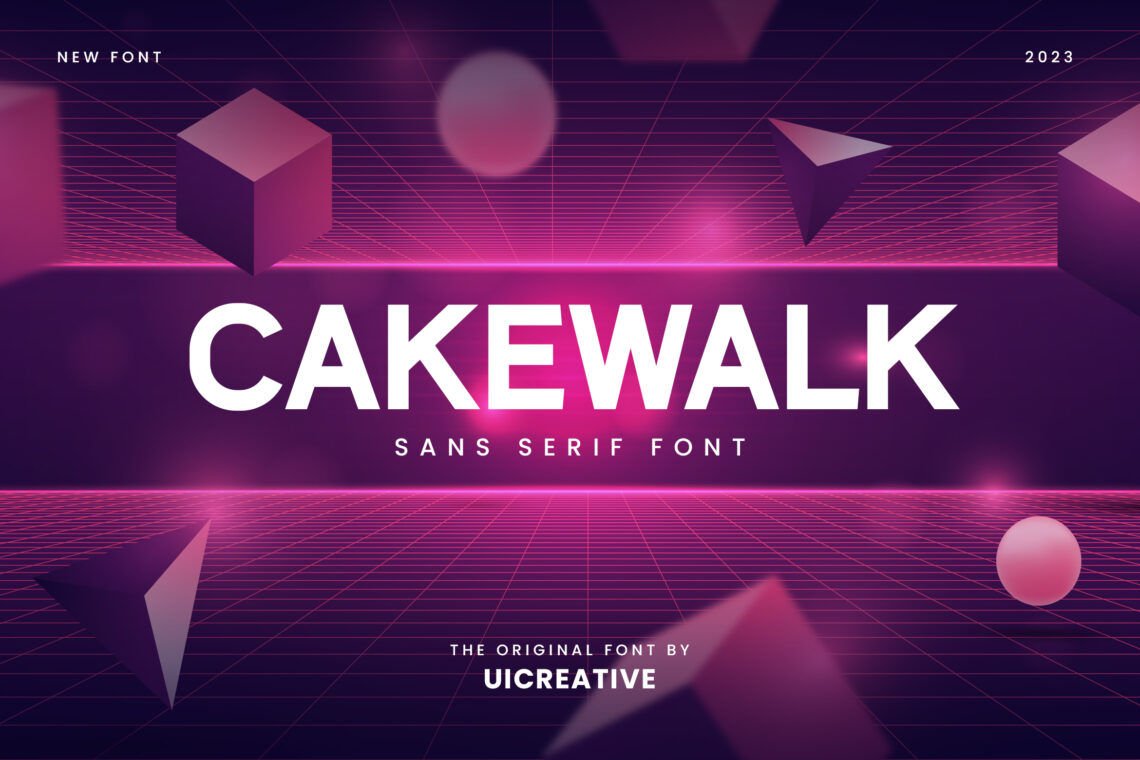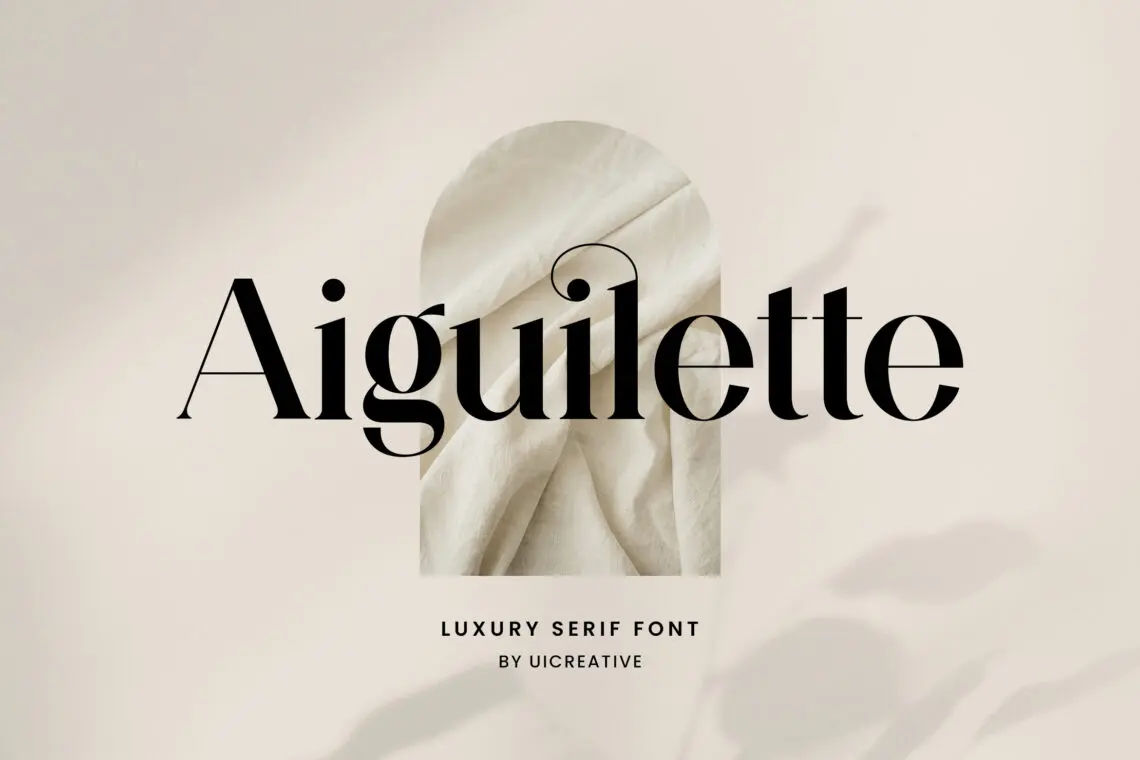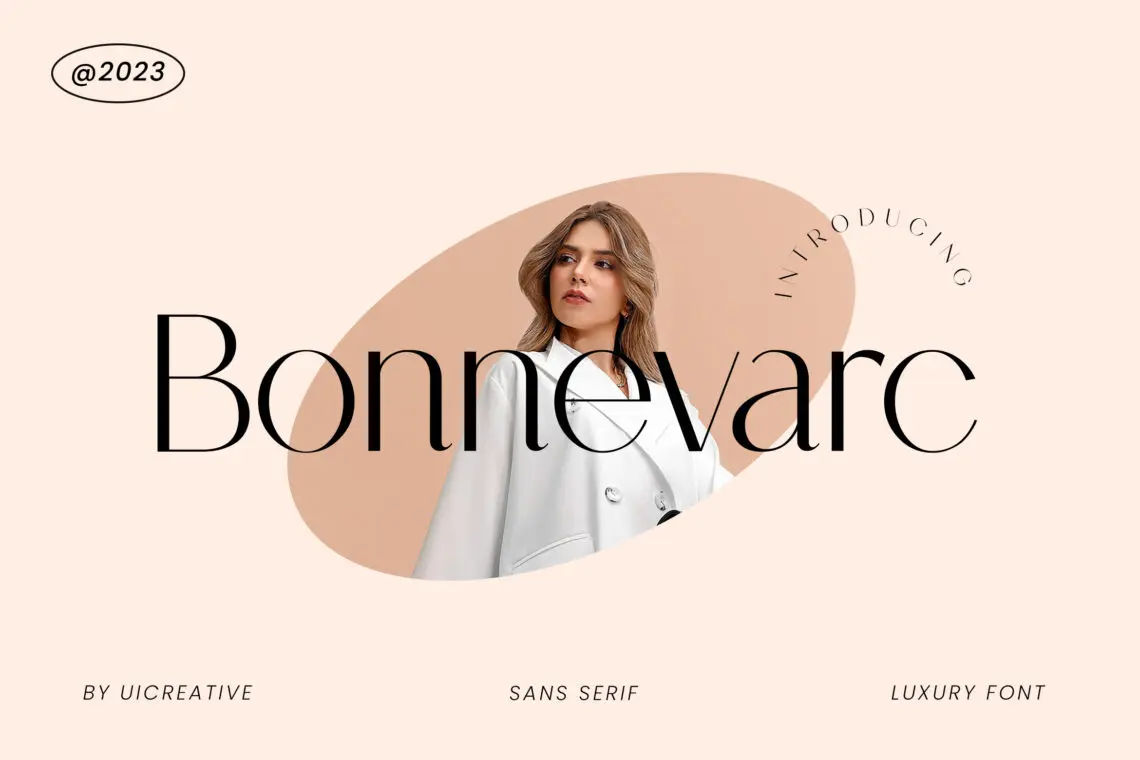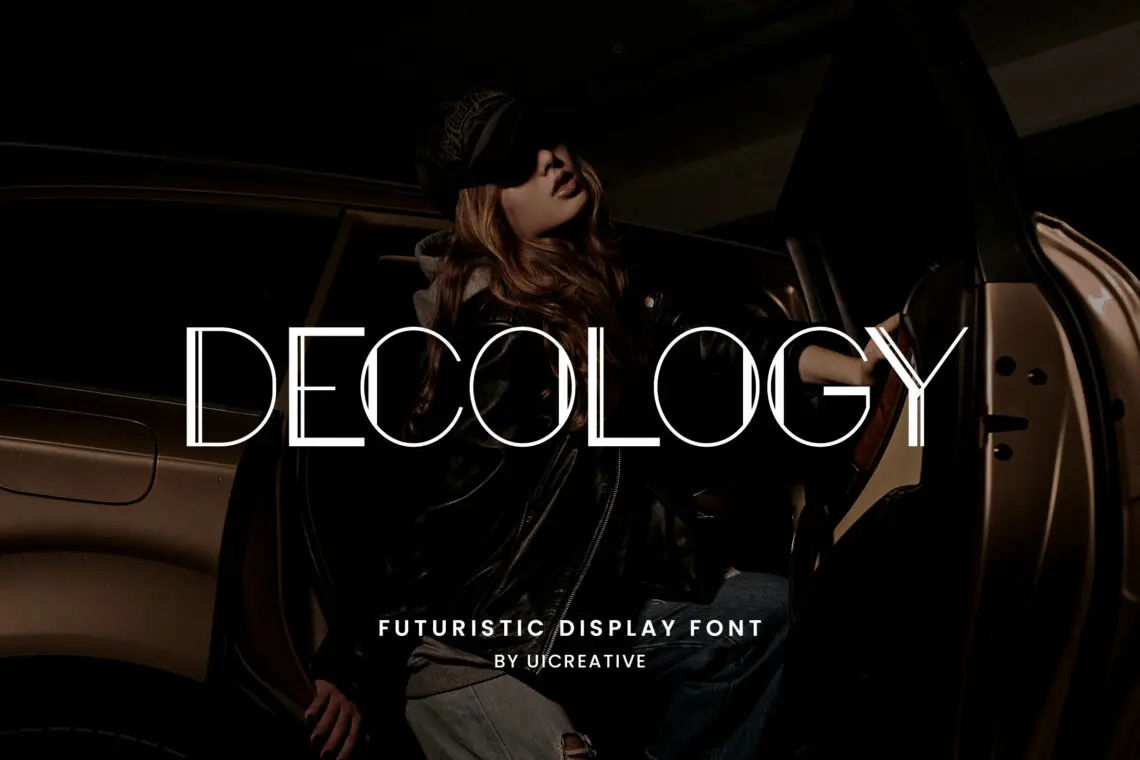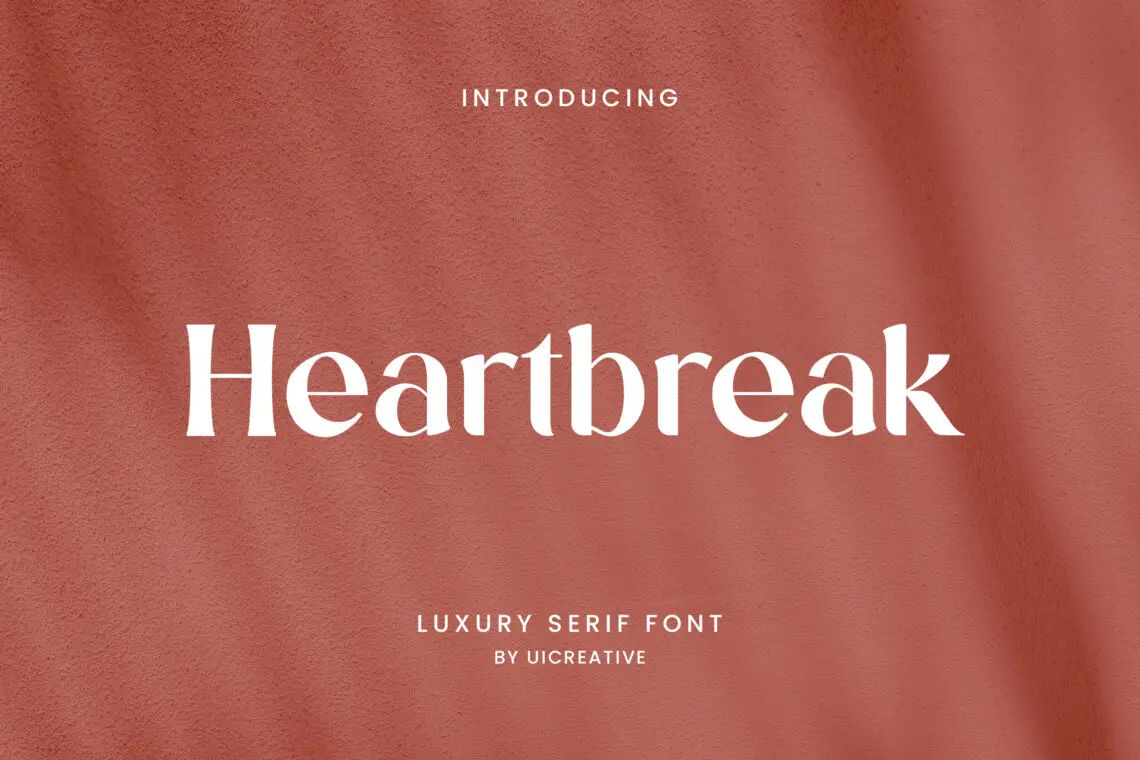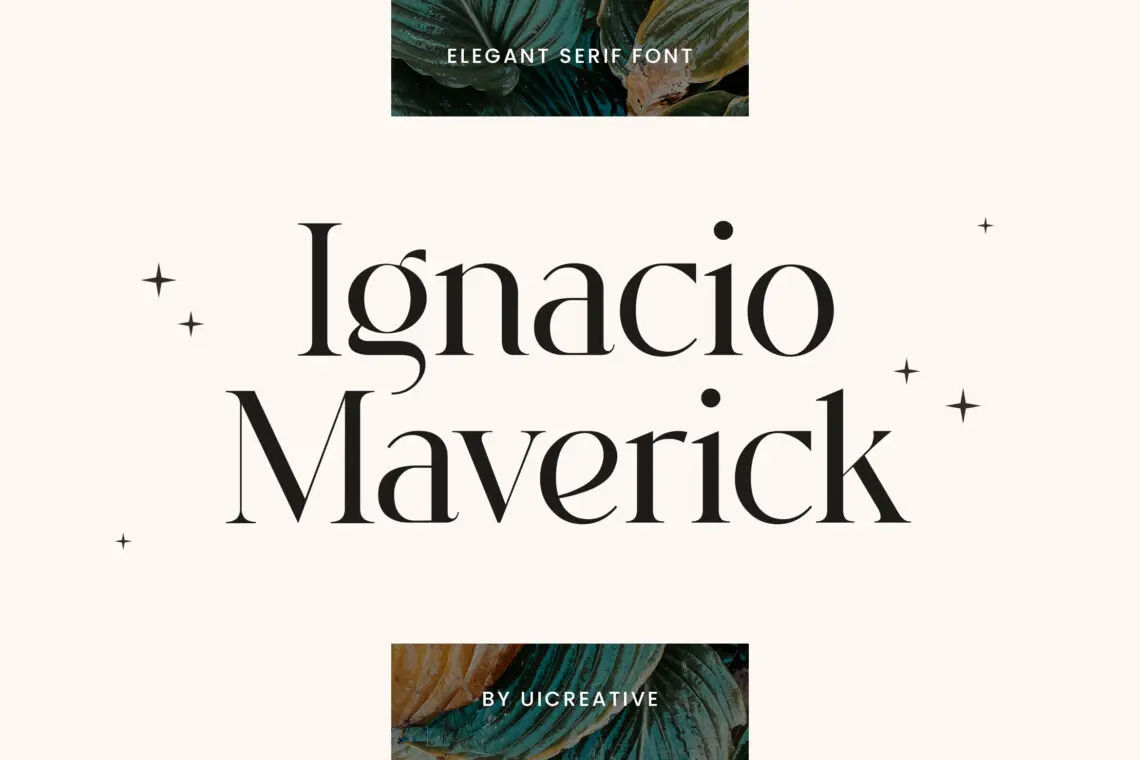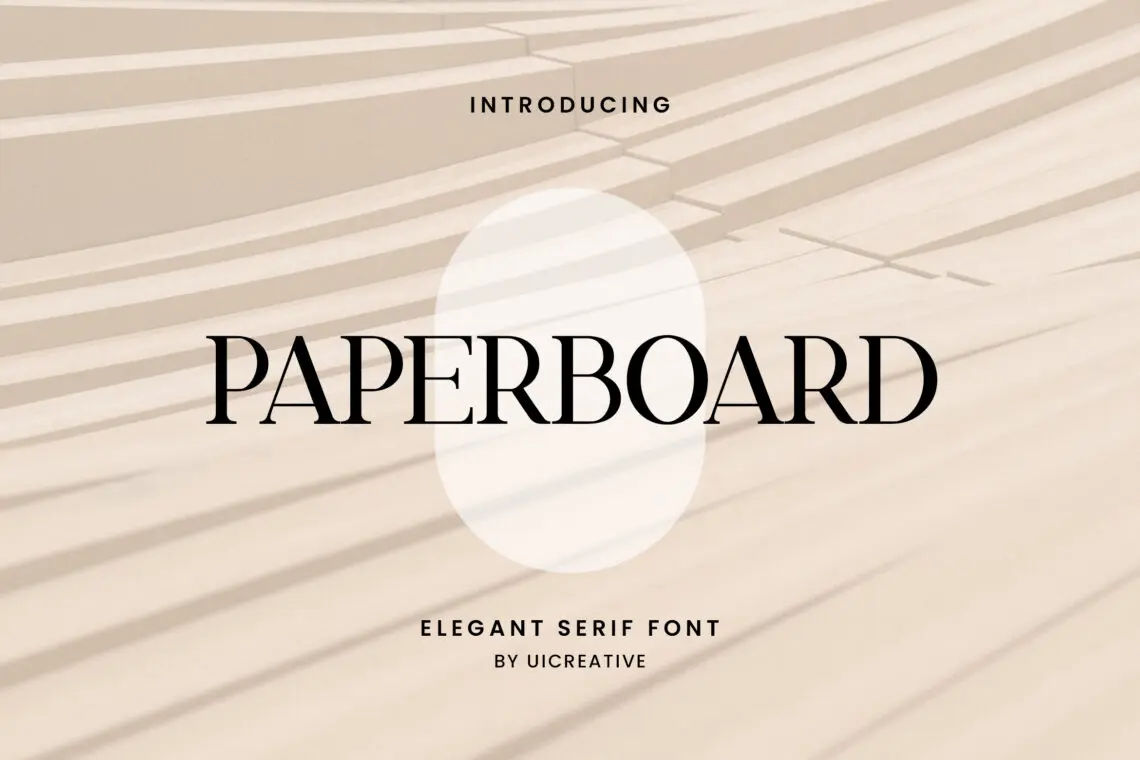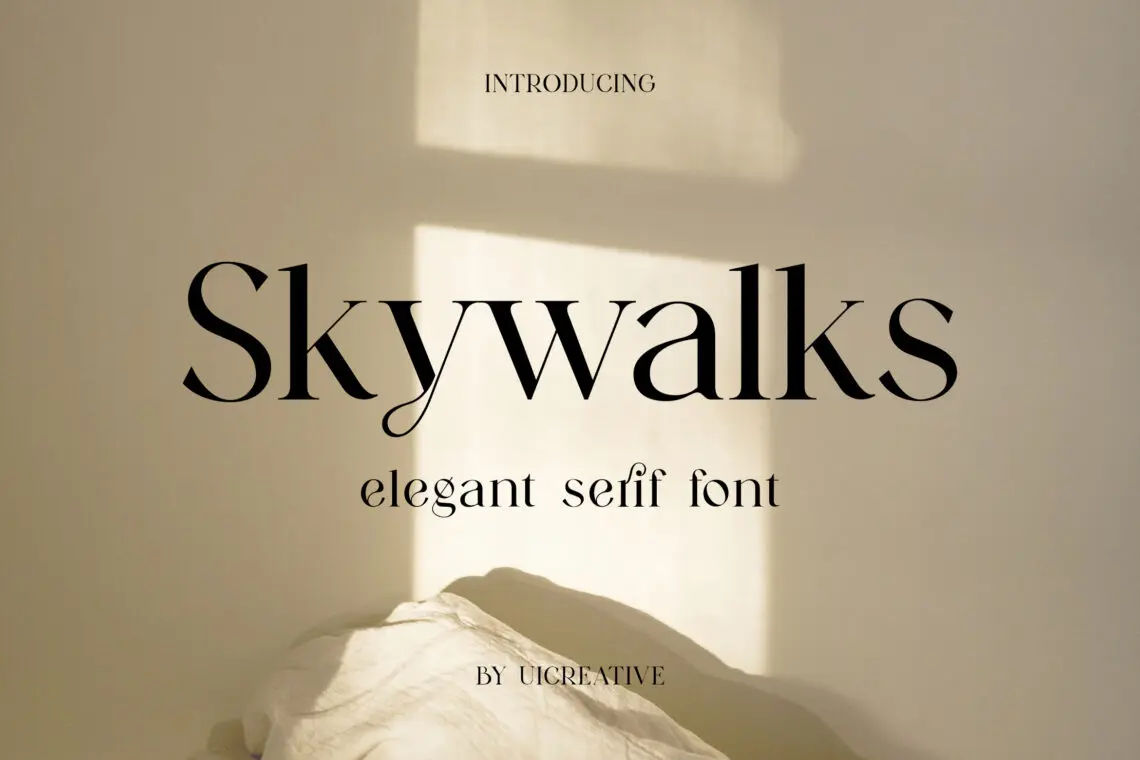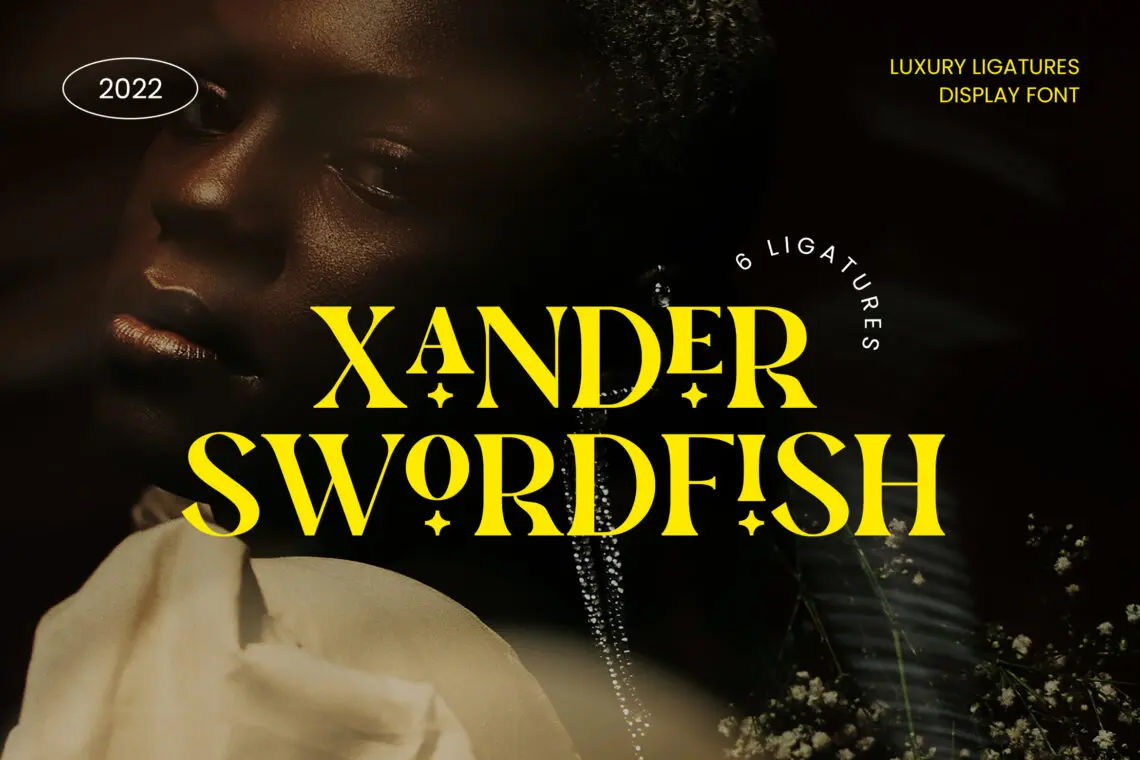
10 Best Font Logo Creator 2025
Creating a distinctive and memorable logo is one of the most important steps for any business or individual looking to establish their brand identity. In 2025, technology continues to evolve, and designers now have access to powerful tools that help easily create professional and eye-catching logos. Choosing the right font is one of the most essential components of logo design. A great font can express your brand’s personality and convey the message you want to send. In this article, we will explore the best font logo creator 2025 options to help you design a logo that stands out.
Here are the 10 best font logo creator 2025 for you:
1. Cakewalk Sans Serif Font
Cakewalk Sans Serif Font
Cakewalk Sans Serif is a modern, clean, and versatile typeface that effortlessly combines elegance with simplicity. Perfect for both digital and print projects, this font offers exceptional readability and a contemporary aesthetic, making it ideal for branding, websites, logos, and more. With its sleek lines and balanced structure, Cakewalk Sans Serif adds a touch of sophistication to any design, whether you’re creating minimalist layouts or vibrant compositions. Its versatility ensures it stands out in any context, making it the go-to choice for designers seeking a professional yet stylish font.
2. Skywalks Elegant Serif Font
Skywalks Elegant Serif Font
Skywalks Elegant Serif is a sophisticated and timeless typeface that exudes luxury and refinement. With its gracefully structured serifs and harmonious proportions, this font brings an air of elegance to any design. Perfect for high-end branding, editorial layouts, invitations, and more, Skywalks Elegant Serif creates a memorable impression with its delicate curves and classic appeal. Its premium feel is balanced by excellent readability, making it the ideal choice for projects that demand both style and functionality. Whether you’re crafting a logo or a formal document, this font adds a touch of class to any creative endeavor.
3. Heartbreak Luxury Serif Font
Heartbreak Luxury Serif Font
Heartbreak Luxury Serif is a bold and refined typeface that radiates sophistication and charm. With its elegant serifs and distinctive curves, this font creates a perfect balance between classic luxury and modern style. Designed to make a statement, Heartbreak Luxury Serif is ideal for upscale branding, high-end fashion, editorial design, and luxury product packaging. Its timeless appeal, combined with its contemporary flair, makes it the perfect choice for projects that demand a touch of opulence. Whether you’re designing invitations, websites, or logos, this font adds an unforgettable elegance to your creations.
4. Aiguilette Luxury Serif Font
Aiguilette Luxury Serif Font
Aiguilette Luxury Serif is an exquisite typeface that seamlessly blends timeless sophistication with modern elegance. Its meticulously crafted serifs and refined letterforms exude a sense of luxury, making it the perfect choice for high-end branding, premium fashion, editorial designs, and prestigious invitations. With its graceful proportions and striking visual presence, Aiguilette Luxury Serif adds a touch of class and opulence to any project. Whether you’re designing a logo, a website, or an upscale print piece, this font’s regal charm ensures your creations stand out with unmatched refinement and style.
5. Decology Futuristic Sans Serif Font
Decology Futuristic Sans Serif Font
Decology Futuristic Sans Serif is a cutting-edge typeface that captures the essence of modern innovation and sleek design. With its clean lines, geometric structure, and dynamic character spacing, this font embodies a forward-thinking aesthetic, perfect for tech brands, digital interfaces, and futuristic branding. Decology’s minimalistic approach ensures excellent readability while delivering a bold, high-tech look that stands out in any project. Whether used for logos, websites, or digital displays, this font elevates your design with its strong, contemporary presence, making it the ideal choice for anyone looking to push the boundaries of modern typography.
6. Caparison Vintage Typeface Font
Caparison Vintage Typeface Font
Caparison Vintage Typeface is a beautifully crafted font that evokes the charm and nostalgia of classic design with a contemporary twist. With its vintage-inspired letterforms, intricate details, and unique character style, Caparison brings a sense of timeless elegance to any project. Perfect for retro branding, packaging, posters, and logos, this typeface adds personality and character to your creations. The blend of old-world charm and modern appeal makes Caparison ideal for designs that require a touch of history and sophistication. Whether you’re designing for print or digital media, this font brings a warm, vintage feel with a fresh, modern perspective.
7. Ignacio Maverick Elegant Serif Font
Ignacio Maverick Elegant Serif Font
Ignacio Maverick Elegant Serif is a refined and striking typeface that effortlessly combines classic elegance with bold sophistication. Its carefully crafted serifs, paired with smooth, flowing curves, create a harmonious balance that makes it perfect for luxury branding, high-end fashion, editorial design, and upscale invitations. The font’s timeless appeal and exceptional readability make it versatile across various mediums, while its distinctive style adds a touch of personality and grandeur to any project. Whether you’re designing a logo, website, or printed material, Ignacio Maverick Elegant Serif exudes a sense of prestige and grace that will elevate your work to new heights.
8. Xander Swordfish Luxury Ligature Serif Display
Xander Swordfish Luxury Ligature Serif Display
Xander Swordfish Luxury Ligature Serif Display is a captivating and elegant typeface that combines opulent design with striking ligatures, creating a bold and refined visual impact. Its sophisticated serifs and intricate letter connections evoke a sense of grandeur and exclusivity, making it the ideal choice for high-end branding, luxury fashion, editorial layouts, and premium product packaging. The font’s unique ligatures and bold presence ensure it commands attention while maintaining readability, making it perfect for standout designs that demand a touch of elegance and modern flair. Whether you’re designing a logo, a headline, or an upscale print piece, Xander Swordfish Luxury Ligature Serif Display adds a powerful sense of style and prestige to your creations.